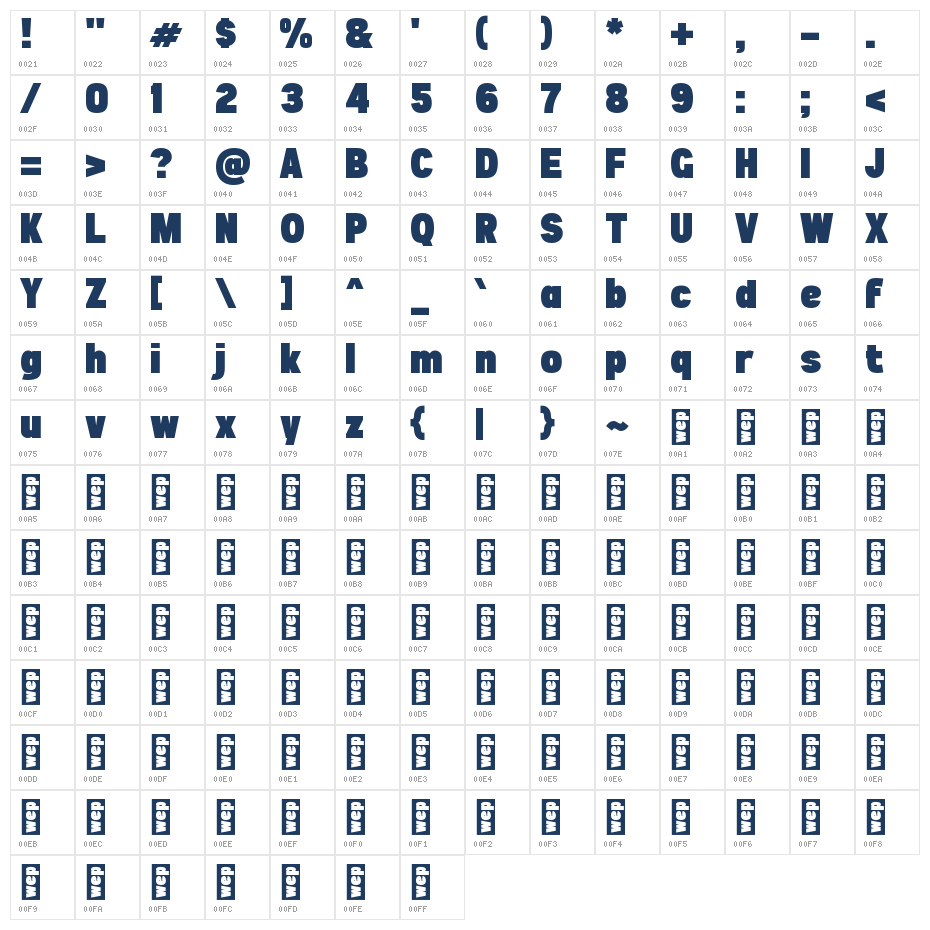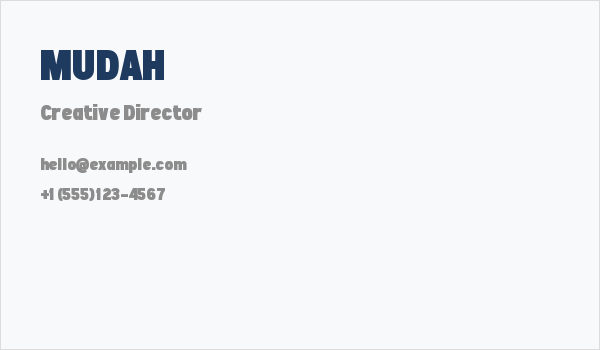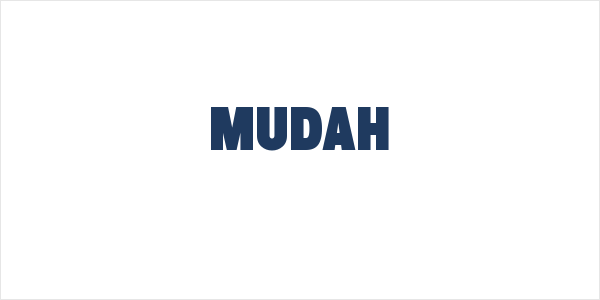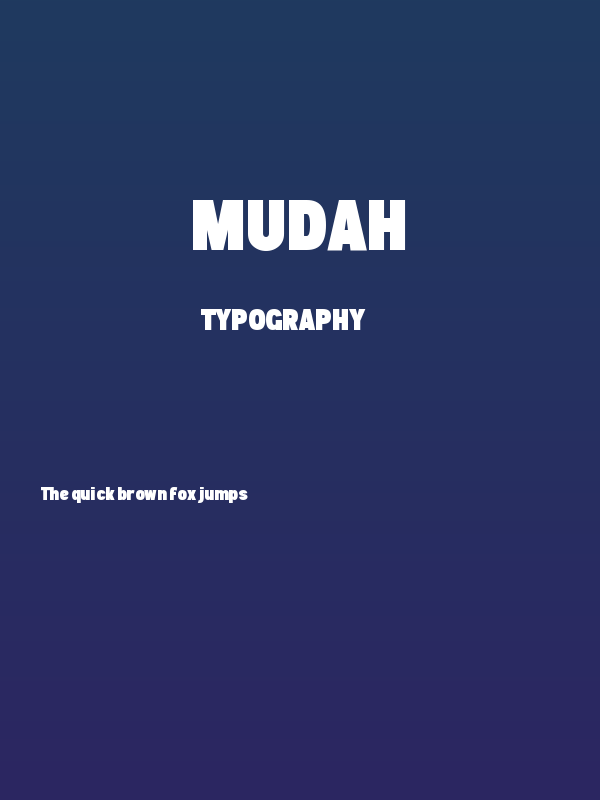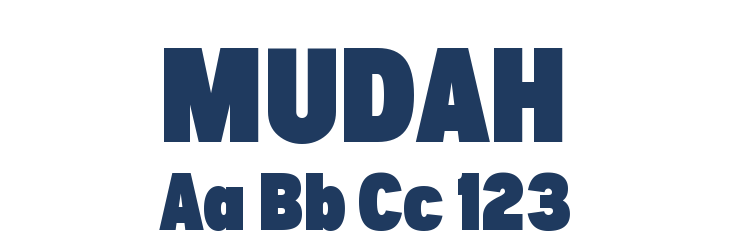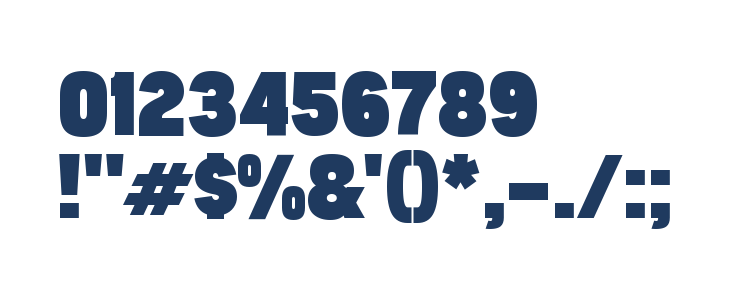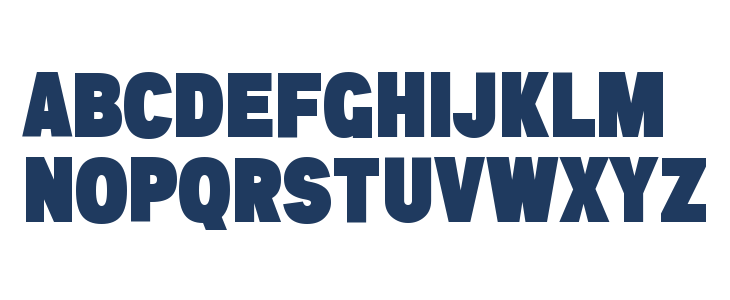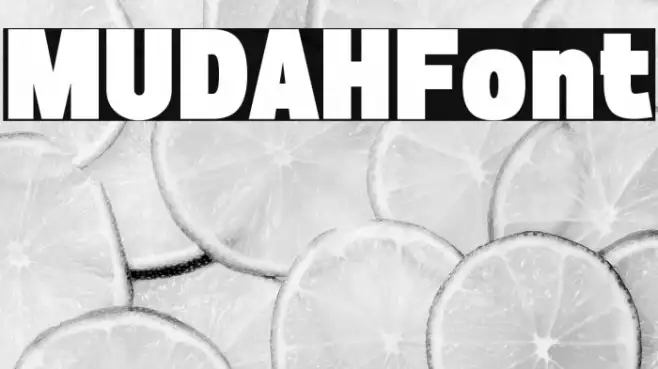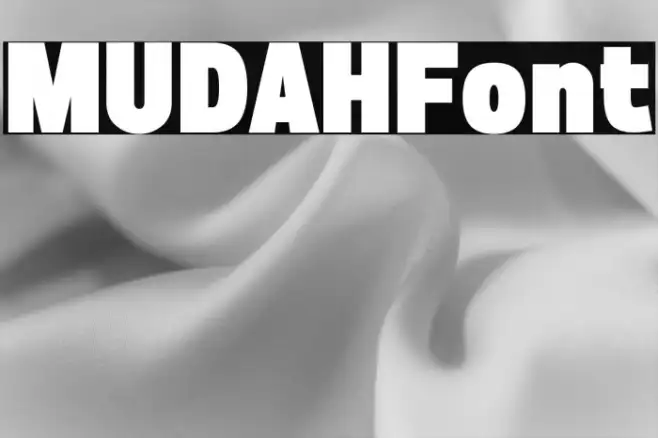
MUDAH Font
MUDAH Description
Bold, chunky, sans-serif font with a playful and modern appearance, characterized by thick strokes and rounded edges.
| Overall Style | Modern, Bold, Playful |
| Use Case | Headlines, Display text, Logos |